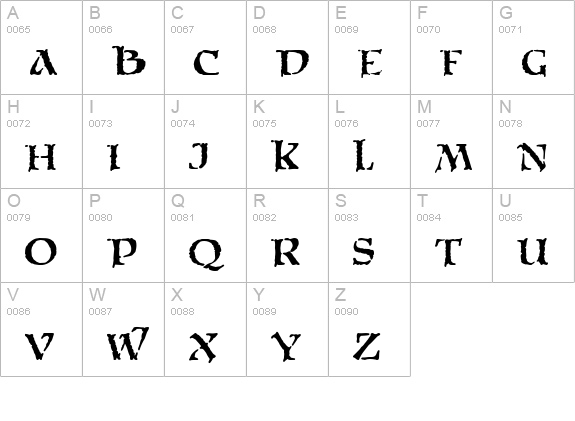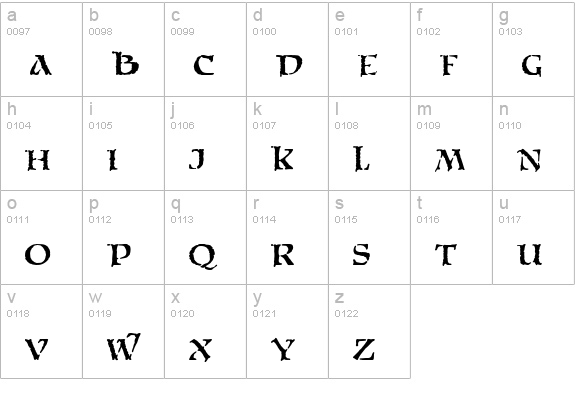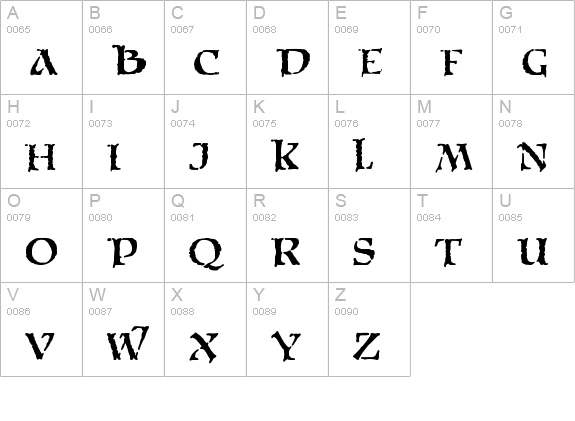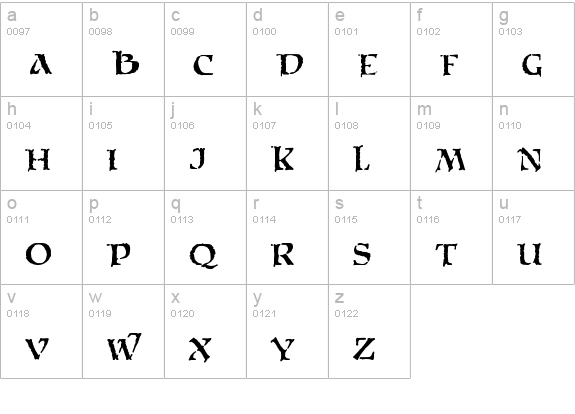
Satans Minions Font Details
Introducing Satans Minions, a captivating and edgy font that exudes an air of mystery and intrigue. This font is perfect for those seeking to add a touch of darkness and rebellion to their designs. With its bold and striking letterforms, Satans Minions commands attention and refuses to be ignored. Crafted with meticulous attention to detail, this font is a testament to the artistry of typography. Each letter is carefully designed to maintain a harmonious balance between its sharp angles and smooth curves, creating a unique visual aesthetic that is both captivating and unsettling. Satans Minions is not just another font; it is an expression of individuality and self-expression. It embodies the rebellious spirit and challenges the norms of traditional typography. Its distinctive style sets it apart from the crowd, making it the perfect choice for those who dare to be different. One of the best parts about Satans Minions is that it is freely available to download at FontsMarket.com. This means that you can get your hands on this extraordinary font without any cost. Whether you are a professional designer or an aspiring artist, Satans Minions offers you the opportunity to unleash your creativity and bring your visions to life. So, if you're looking for a font that defies convention and adds a touch of darkness to your projects, look no further than Satans Minions. Download it for free at FontsMarket.com and let your designs speak volumes with its captivating presence. Embrace the dark side of typography and unlock a world of endless possibilities with Satans Minions.